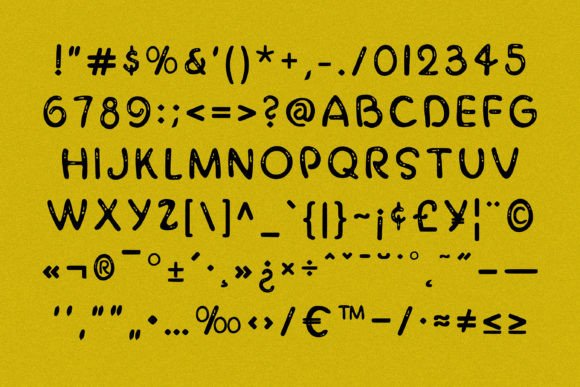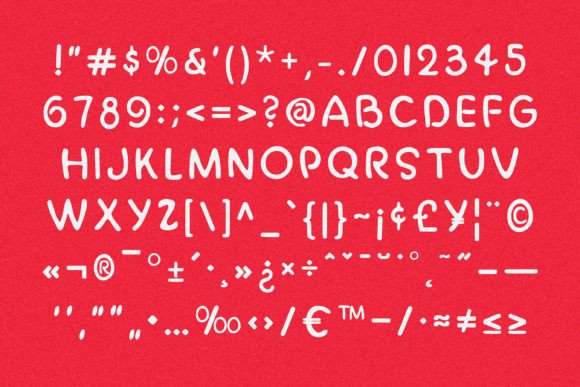
Introducing Berlin Font: The Fun and Cool All-Caps Display Font
Are you tired of using the same old fonts in your designs? Look no further than the Berlin Font, a fun and cool all-caps display font that’s sure to add a touch of personality to your work. With its unique blend of funky and trendy vibes, Berlin Font is perfect for designers and crafters looking to add some excitement to their designs.
What Makes Berlin Font So Special?
Berlin Font is a one-of-a-kind font that’s designed to make a statement. Its all-caps design and bold lines make it perfect for headlines, titles, and other applications where you want to grab attention. But what really sets Berlin Font apart is its unique blend of funky and trendy vibes. It’s a font that’s a little bit quirky, a little bit playful, and a whole lot of cool.
Perfect for a Variety of Design Ideas
One of the best things about Berlin Font is its versatility. It’s a font that can be used in a wide range of design ideas, from posters and flyers to logos and branding materials. Whether you’re designing for a client or working on a personal project, Berlin Font is a great choice. Its bold lines and funky vibe make it perfect for:
- Web headers and titles
Why Designers and Crafters Love Berlin Font
So why do designers and crafters love Berlin Font? For one, it’s a font that’s easy to read and understand, even at large sizes. Its bold lines and clear lettering make it perfect for headlines and titles, and its funky vibe adds a touch of personality to any design. Additionally, Berlin Font is:
- Easy to use: Berlin Font is a straightforward font to use, even for those who are new to design.
- Highly versatile: Berlin Font can be used in a wide range of design ideas and applications.
- Unique: Berlin Font is a one-of-a-kind font that’s sure to make your designs stand out.
How to Use Berlin Font in Your Designs
- Use it for headlines and titles: Berlin Font is perfect for grabbing attention and adding a touch of personality to your designs.
- Experiment with different colors: Berlin Font looks great in a wide range of colors, from bold and bright to subtle and muted.
- Pair it with other fonts: Berlin Font pairs well with a wide range of other fonts, from serif and sans serif fonts to script and decorative fonts.
In conclusion, Berlin Font is a fun and cool all-caps display font that’s perfect for designers and crafters looking to add some excitement to their designs. With its unique blend of funky and trendy vibes, Berlin Font is sure to make your designs stand out. Whether you’re designing for a client or working on a personal project, Berlin Font is a great choice. So why not give it a try and see what you can create?
Key Features of Berlin Font
- All-caps design
- Bold lines and clear lettering
- Funky and trendy vibe
- Highly versatile
- Easy to use